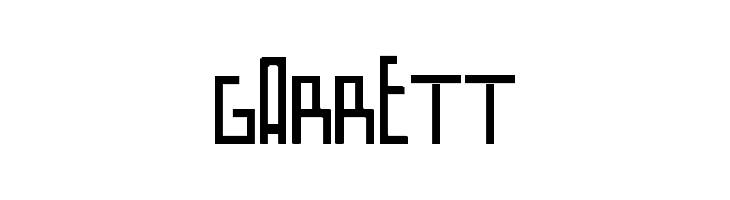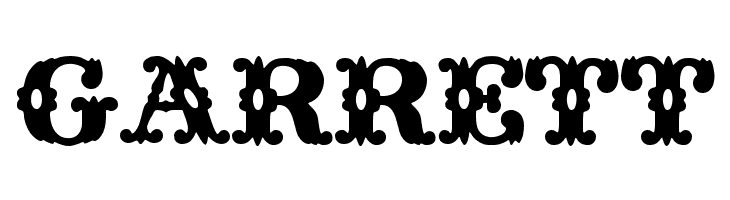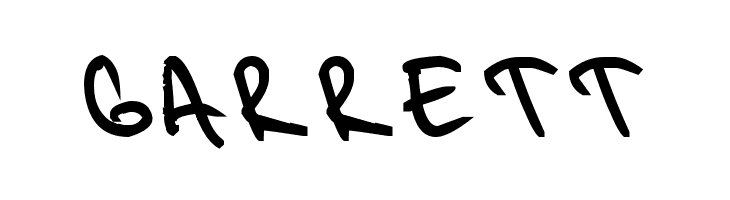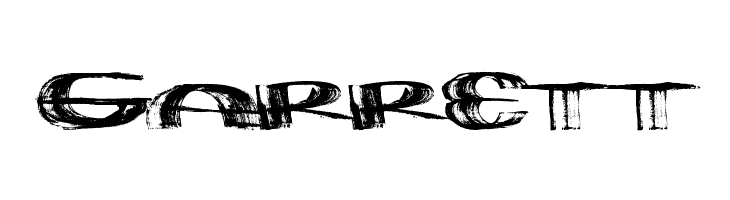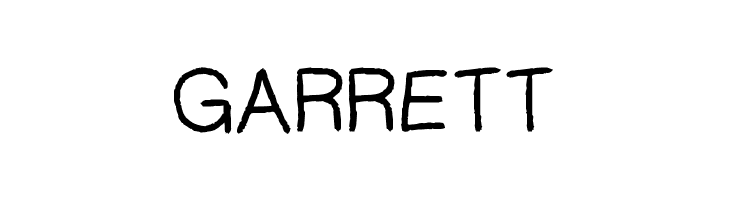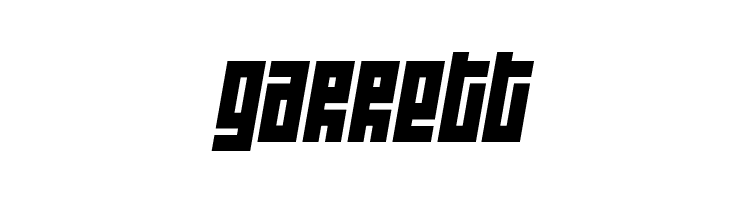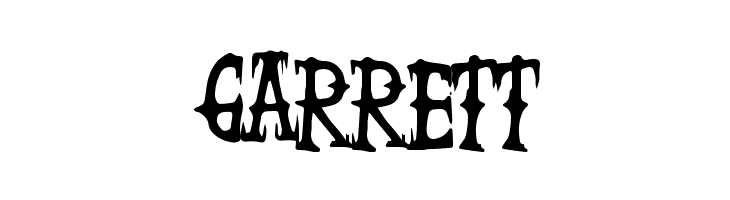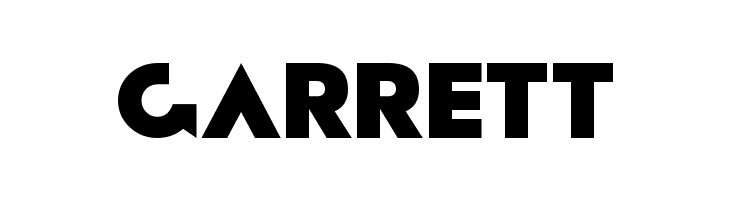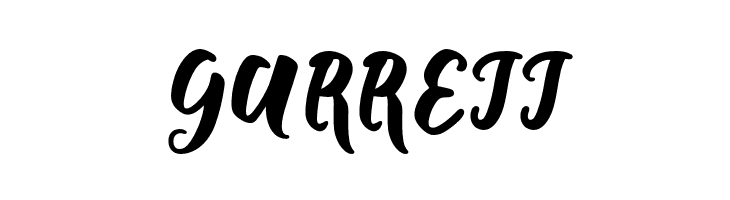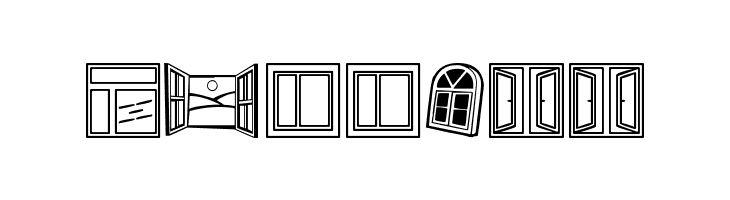
A bold, edgy font with jagged strokes and a rebellious style.
A bold, retro-inspired font with dynamic strokes and angular serifs.
A bold, decorative font with a woven, grid-like design.
A bold, geometric font with a modern, blocky appearance.
A bold, angular font with a dynamic and geometric style.
A geometric, angular font with a modern, futuristic aesthetic.
A bold, geometric font with wide, square-shaped characters and a modern aesthetic.
A wide, thin, and distressed font with high contrast and a modern, decorative style.
A bold, modern sans-serif font with clean lines and uniform strokes.
A modern, light sans-serif font with clean lines and balanced proportions.
A modern, clean sans-serif font with balanced spacing and smooth lines.
A sleek, ultra-thin font with a modern, geometric design.
An ornate Blackletter font with intricate flourishes and a vintage Gothic style.
A bold, modern geometric font with rounded edges and consistent stroke width.
A rugged, textured font with a natural, adventurous feel, resembling wood or bark.
A playful, handwritten font with a casual and whimsical style.
A bold, textured font with a scratched, distressed appearance.
A playful, casual handwritten font with a natural, organic feel.
An ornate, decorative font with intricate floral designs around each letter.
A playful, hand-drawn font with bold characters in circular borders.
A display font where each character is a different window illustration.
A bold, shattered glass effect font with jagged, fragmented characters.
A bold, hand-drawn font with a brush-like texture and artistic style.